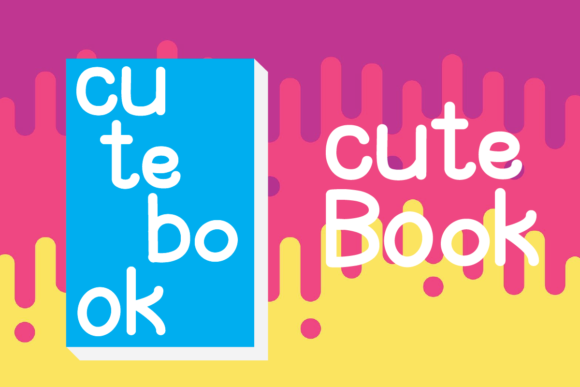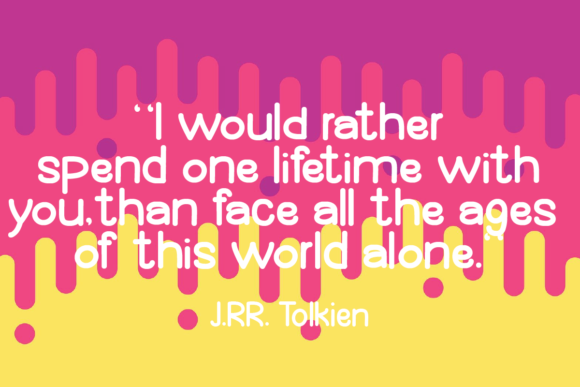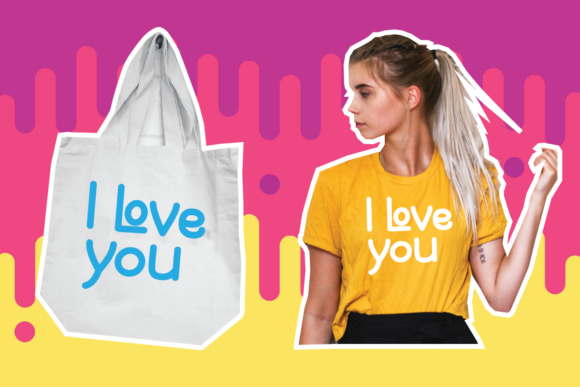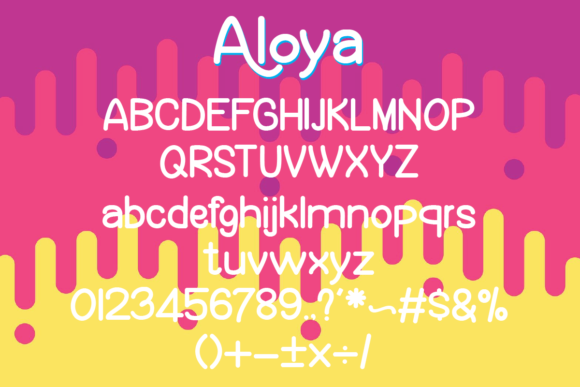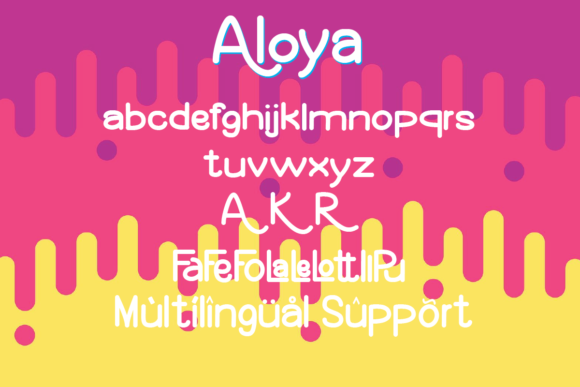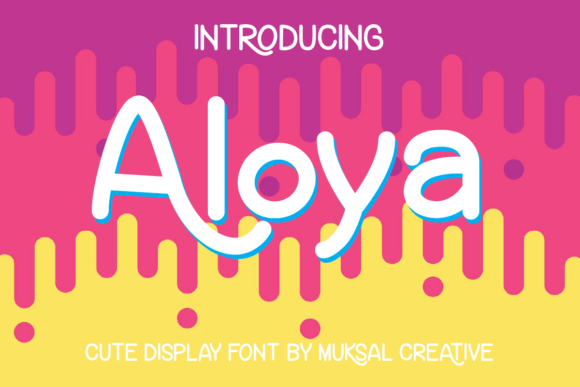
Aloya Font: The Perfect Choice for Friendly and Playful Designs
Aloya font is a delightful display font that has captured the hearts of designers and crafters alike. Its cute and charming appearance makes it an excellent choice for cartoon-related designs, children’s games, and any creation that requires a friendly or casual touch. In this article, we’ll dive into the world of Aloya font, exploring its features, uses, and benefits, as well as provide tips on how to make the most of this amazing font.
What is Aloya Font?
Aloya font is a display font designed to add a playful and whimsical touch to your designs. Its unique and quirky style makes it perfect for projects that require a friendly and approachable feel. Whether you’re creating a logo, poster, or social media graphic, Aloya font is sure to bring a smile to your audience’s faces.
Key Features of Aloya Font
- Cute and Playful Design: Aloya font boasts a charming and whimsical design that’s sure to capture attention.
- Display Font: Designed specifically for display purposes, Aloya font is perfect for headlines, titles, and short texts.
- Cartoon-Related Designs: Its playful style makes it an excellent choice for cartoon-related designs, animations, and children’s games.
- Multilingual Support: Aloya font supports multiple languages, making it a great choice for global projects.
Uses of Aloya Font
Aloya font is incredibly versatile and can be used in a variety of projects, including:
- Children’s Games and Toys: Add a playful touch to your game’s title, logo, or packaging with Aloya font.
- Cartoon and Animation: Use Aloya font to create engaging titles, captions, or character names for your cartoon or animation.
- Social Media Graphics: Add a friendly and approachable touch to your social media graphics, such as Facebook posts, Instagram stories, or Twitter headers.
- Posters and Flyers: Use Aloya font to create eye-catching posters and flyers for events, promotions, or products.
Benefits of Using Aloya Font
So, why choose Aloya font for your next project? Here are some benefits you can expect:
- Unique and Memorable: Aloya font’s playful design ensures your project stands out and is remembered.
- Easy to Read: Despite its playful style, Aloya font remains clear and easy to read, even at smaller sizes.
- Customizable: Experiment with different colors, sizes, and styles to make Aloya font your own.
Tips for Using Aloya Font
To get the most out of Aloya font, follow these tips:
- Use it Sparingly: Aloya font is best used in short bursts, such as headlines or titles. Avoid using it for long blocks of text.
- Pair it with Other Fonts: Combine Aloya font with other fonts to create visual interest and add depth to your design.
- Experiment with Colors: Try out different colors and gradients to make Aloya font pop.
- Be Mindful of Legibility: Ensure Aloya font is clear and easy to read, especially when used at smaller sizes.
Aloya font is a delightful display font that’s perfect for designers and crafters looking to add a playful touch to their projects. Its unique design, versatility, and benefits make it an excellent choice for cartoon-related designs, children’s games, and any creation that requires a friendly or casual touch. By following the tips outlined in this article, you’ll be able to make the most of Aloya font and create engaging, memorable designs that capture your audience’s attention.